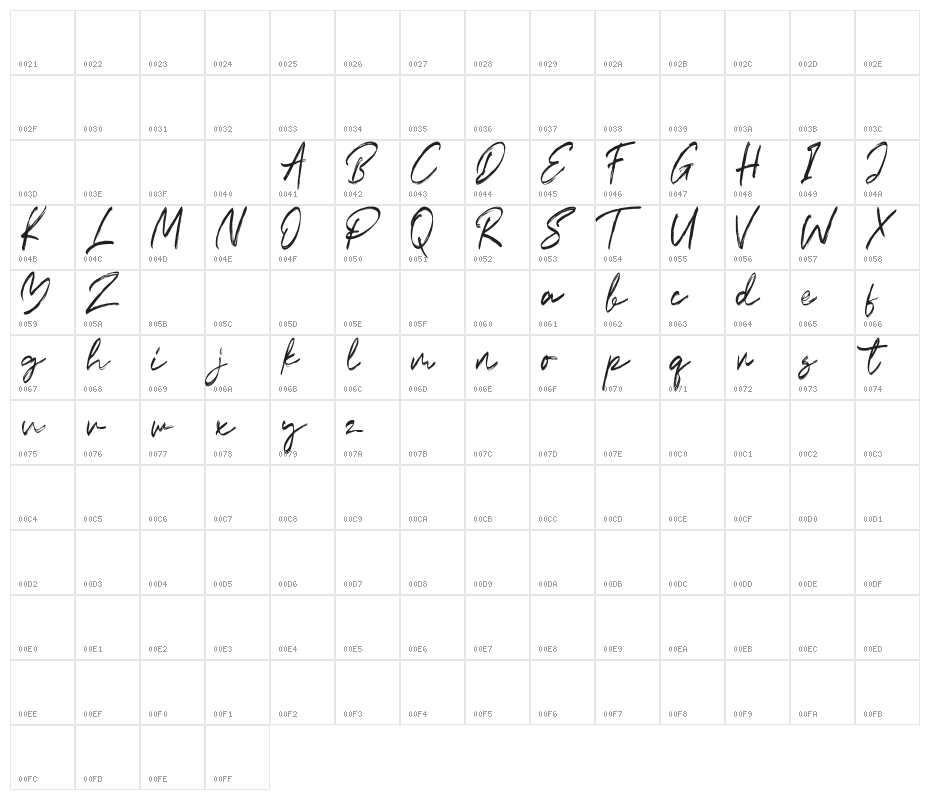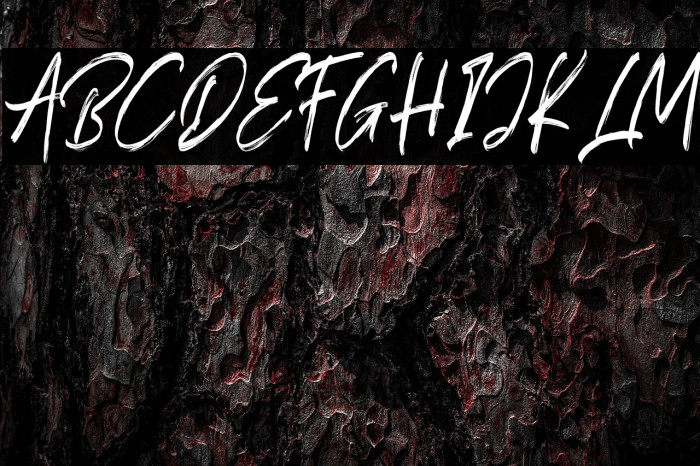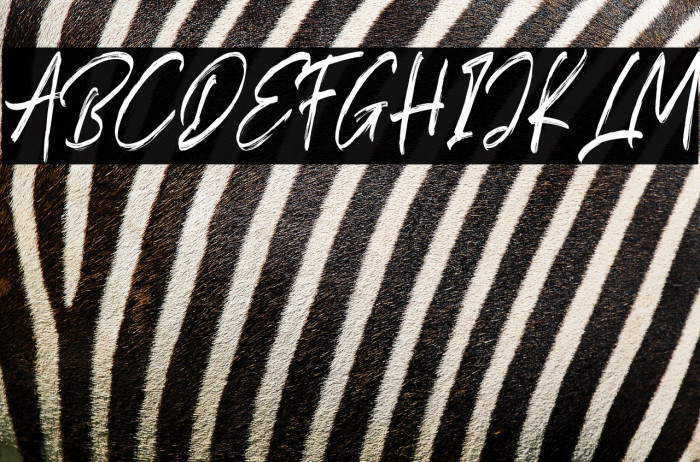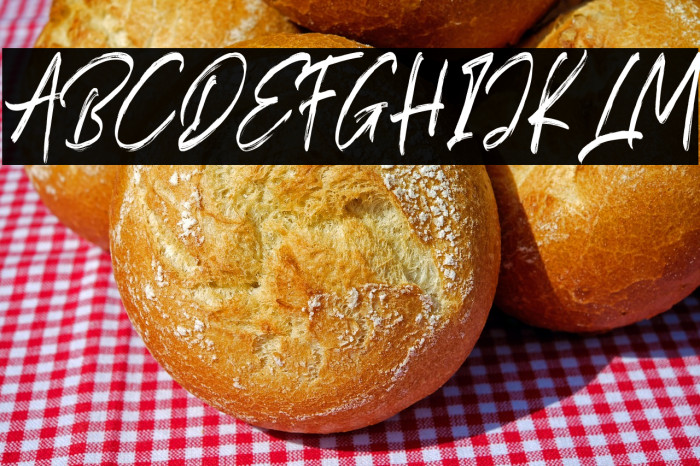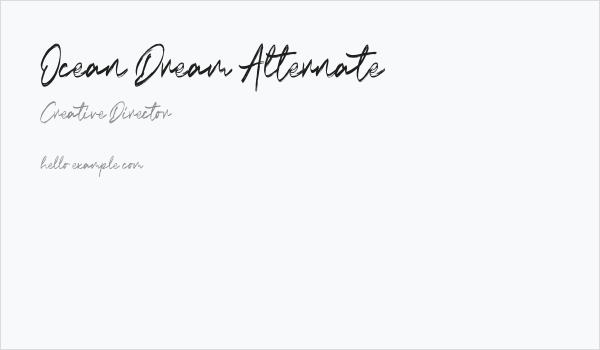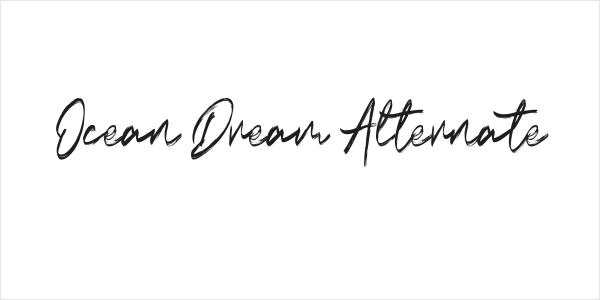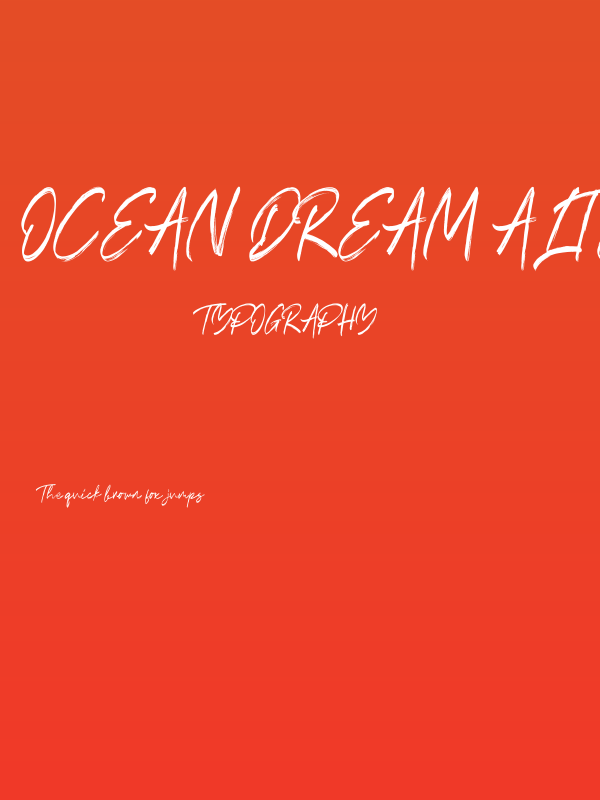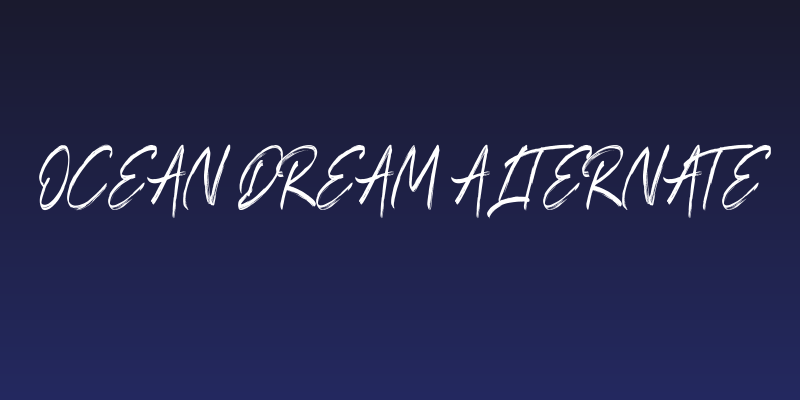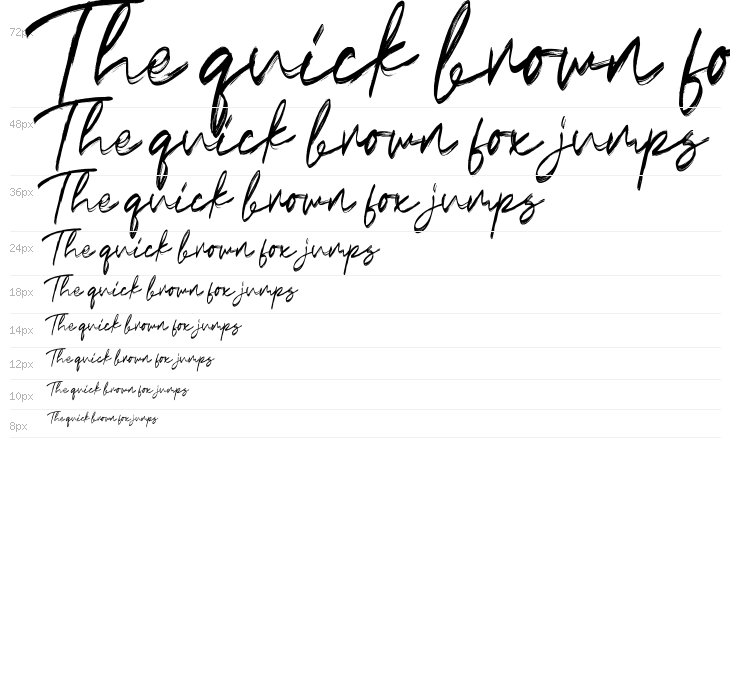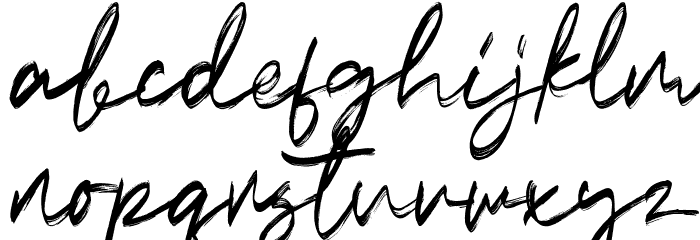
Ocean Dream Alternate Font
Ocean Dream Alternate Description
This font exudes a dynamic and expressive style, characterized by its fluid, handwritten appearance. The strokes are bold and energetic, with a natural flow that mimics the movement of a brush or pen. Each letter is distinct yet harmoniously connected, creating a sense of rhythm and motion. The uppercase letters are slightly more structured, while the lowercase letters exhibit a more casual, freeform style. The overall impression is one of creativity and spontaneity, making it ideal for projects that require a personal touch.
| Proposed Projects | This font is perfect for creative projects such as greeting cards, invitations, artistic posters, and branding materials that require a personal and artistic flair. |